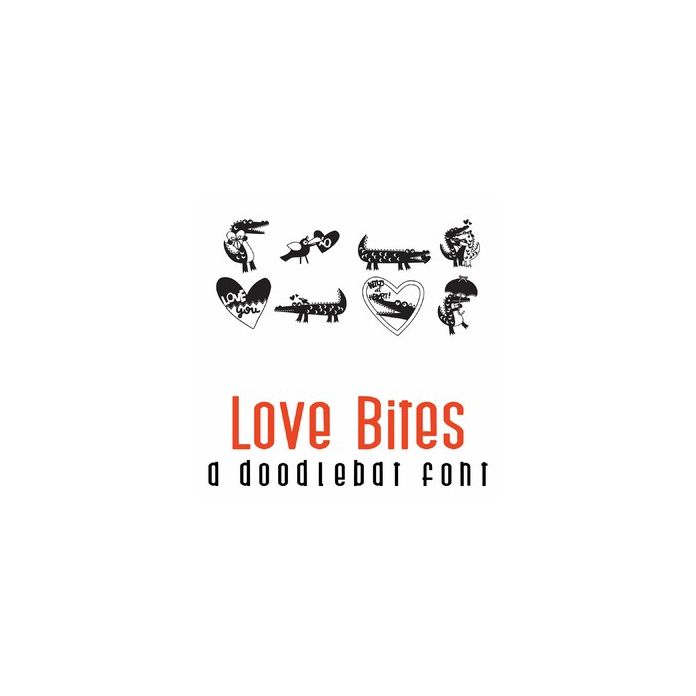
This adorable full-color doodlebat font features 26 adorable alligators, puns and heart images perfect for love, Valentines, cards, crafts, gifts, decor, scrapbook pages, planner stickers, and more!